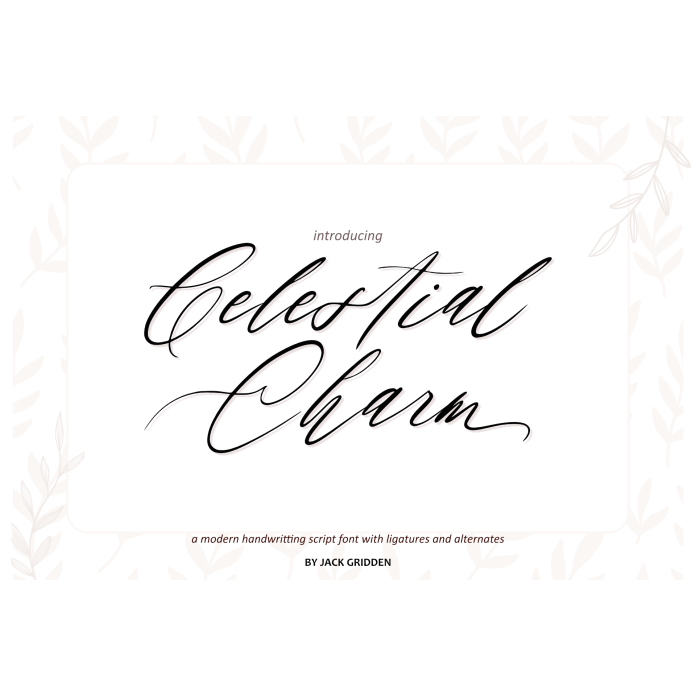
Elevate your designs with the enchanting allure of CelestialCharm, a captivating script font that seamlessly blends celestial elegance with modern charm. This typeface is a harmonious dance of graceful letterforms, each stroke carefully crafted to evoke a sense of ethereal beauty.